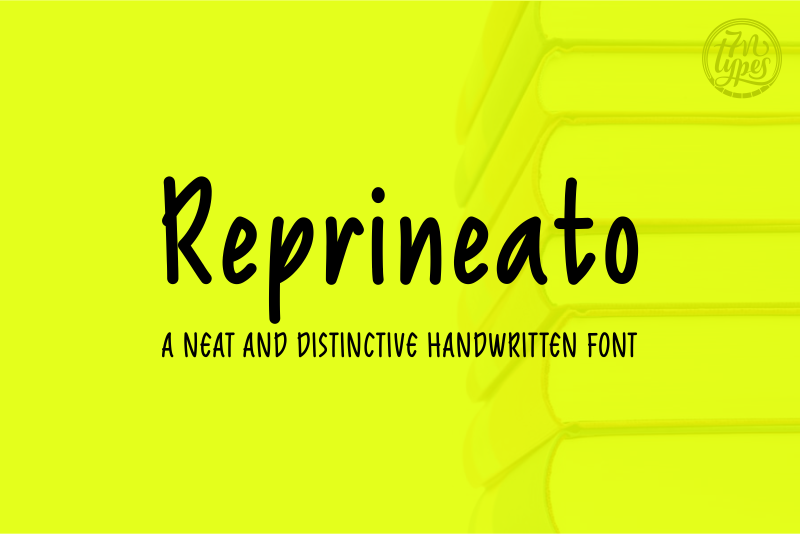
Font name: | Reprineato |
Reprineato is a bold expressive handwritten typeface. It has a strong look and distinctive characters that make it is easy to read and is great for adding a personal touch to designs. It is good to be used for adding a personal line in branding or marketing material. License Personal use: FREE (Donation is much appreciated!) Commercial use: BUY it only on Creative Fabrica: https://www.creativefabrica.com/product/reprineato/ref/87/ Contact me [c7nazara@gmail.com] or visit my website https://7ntypes.com if you have any request or question. Thank you. |